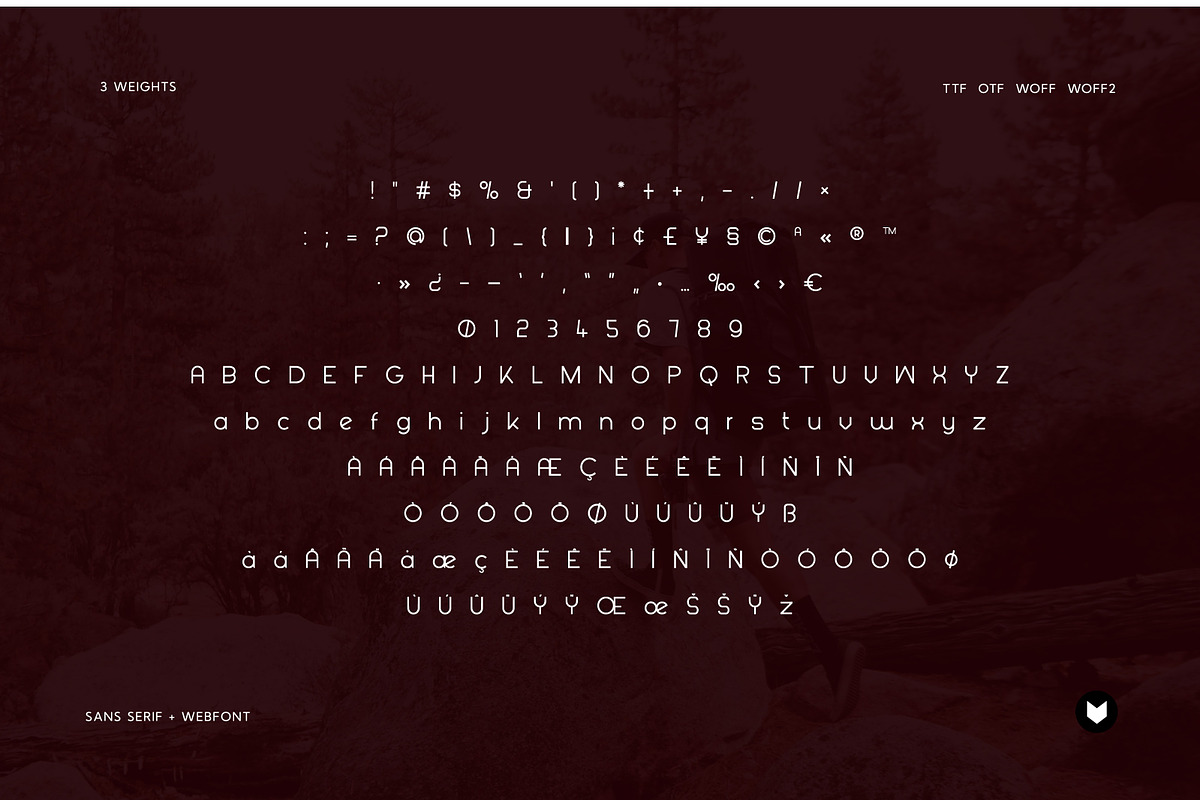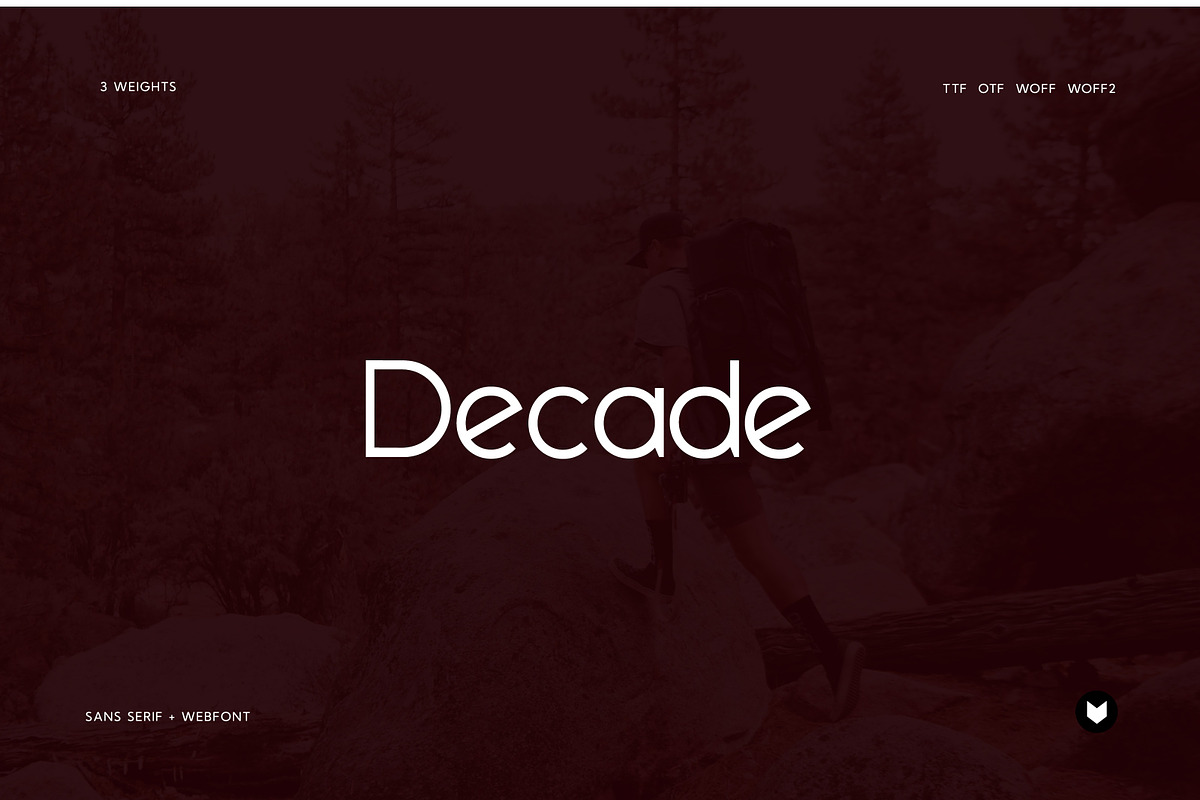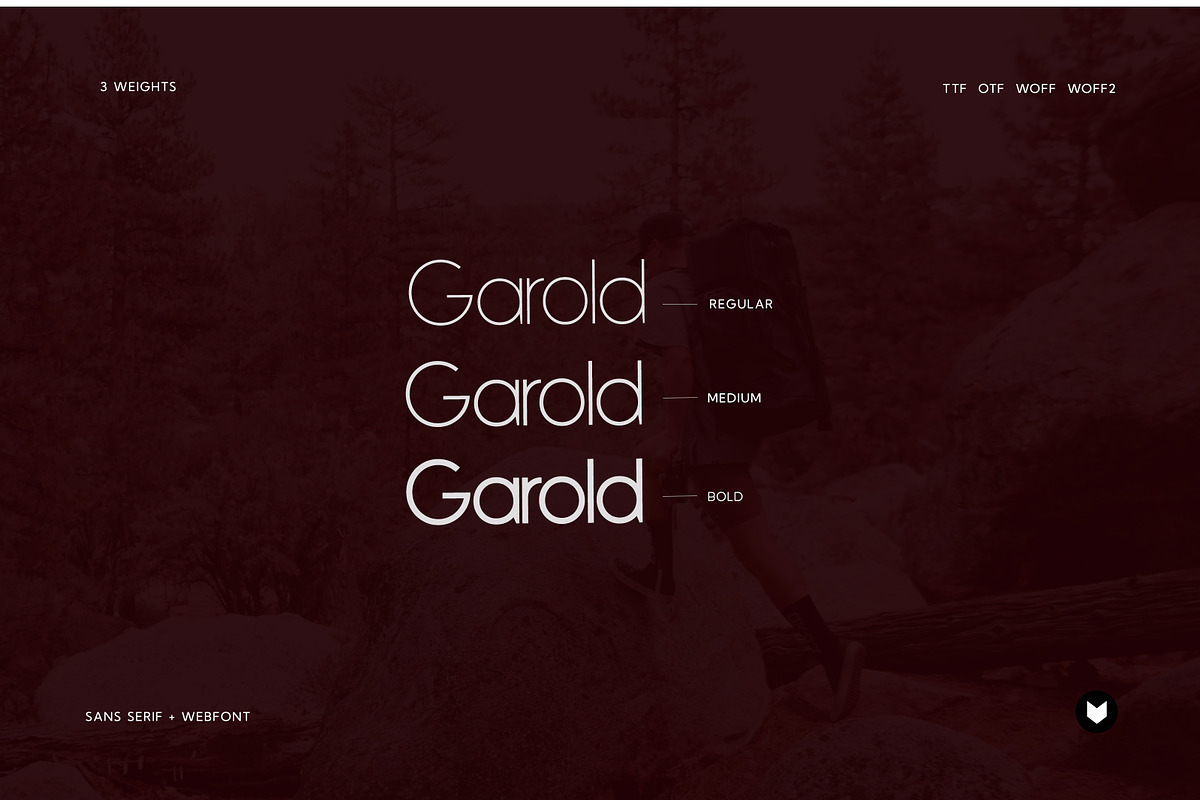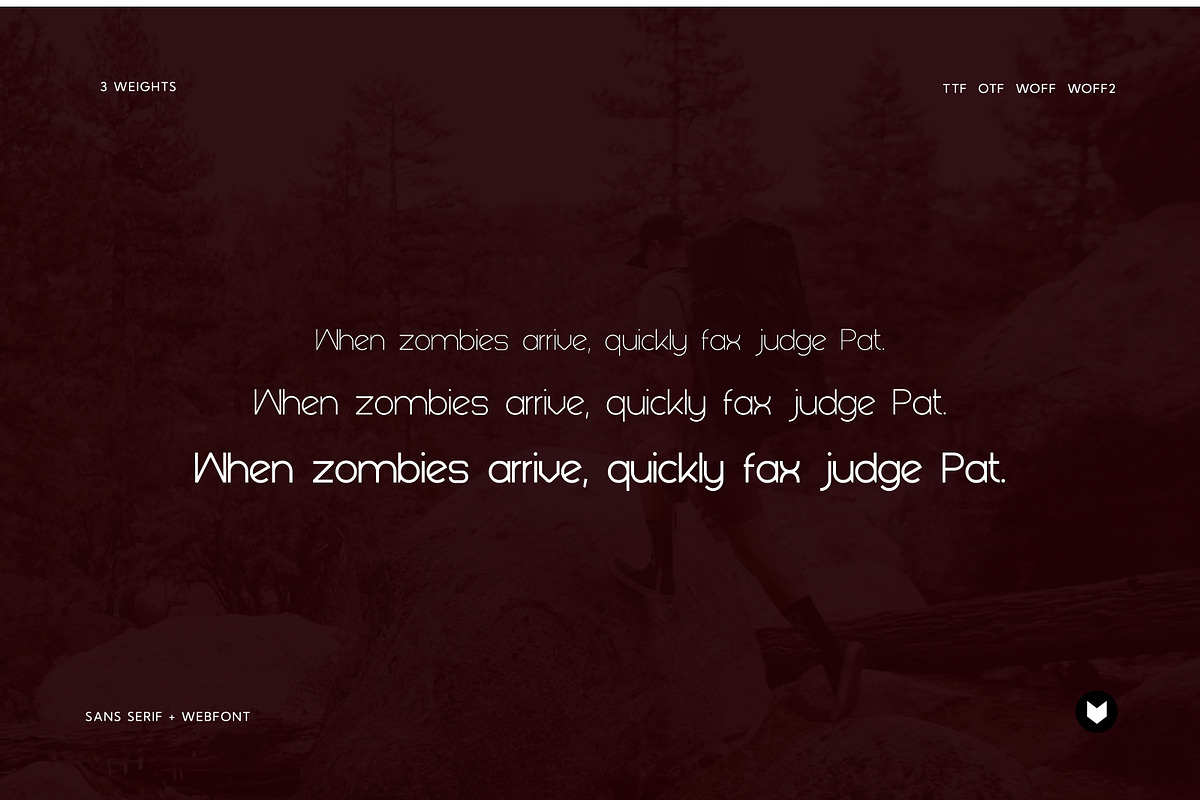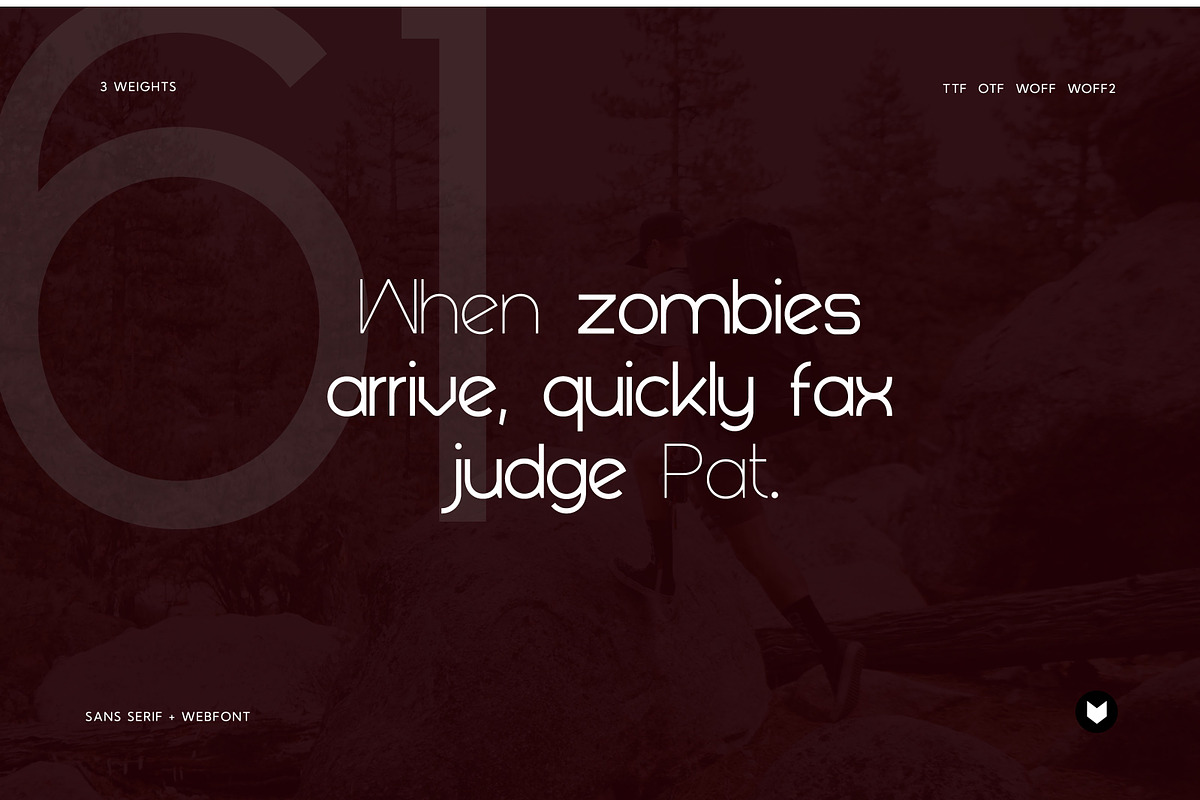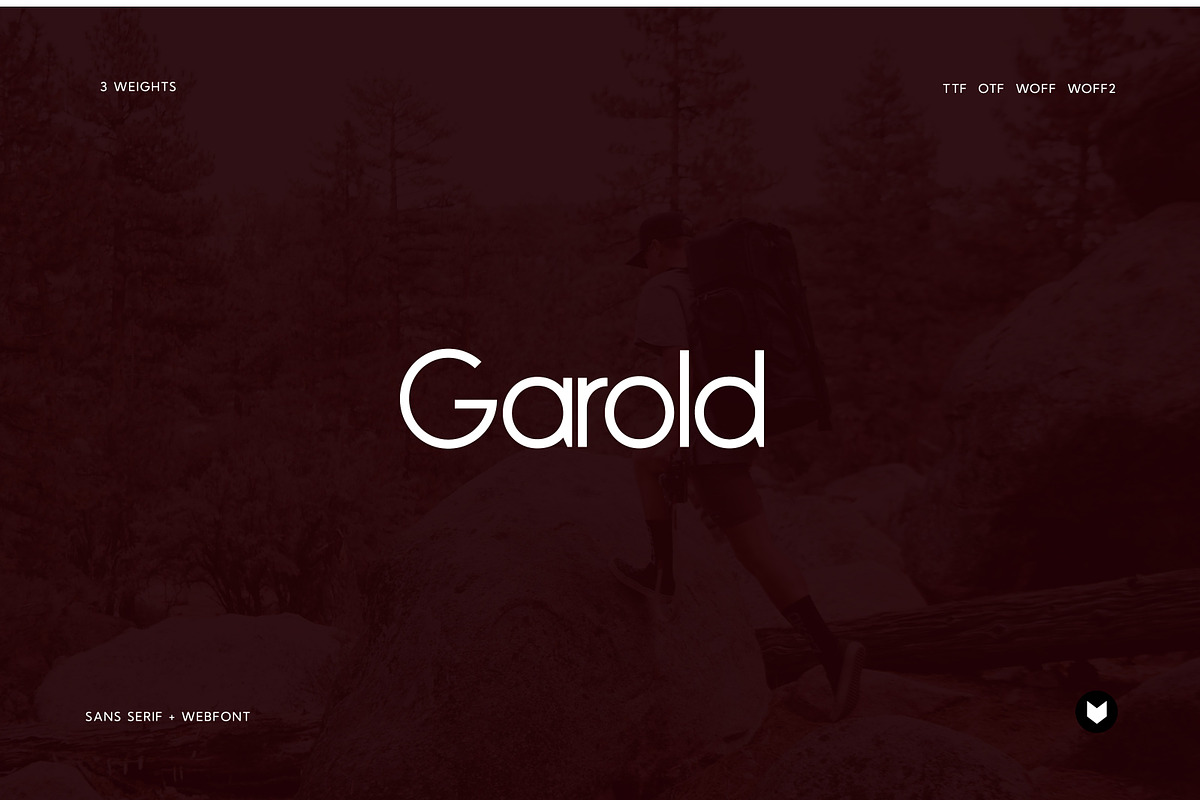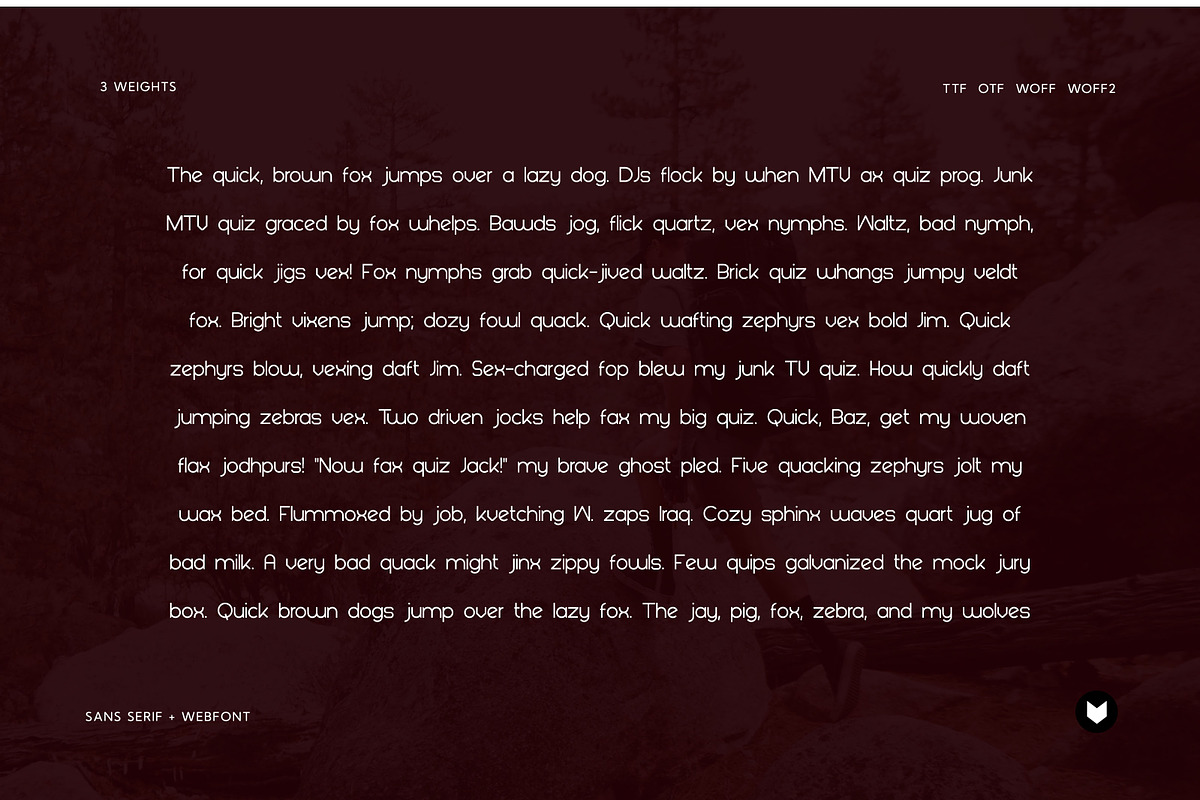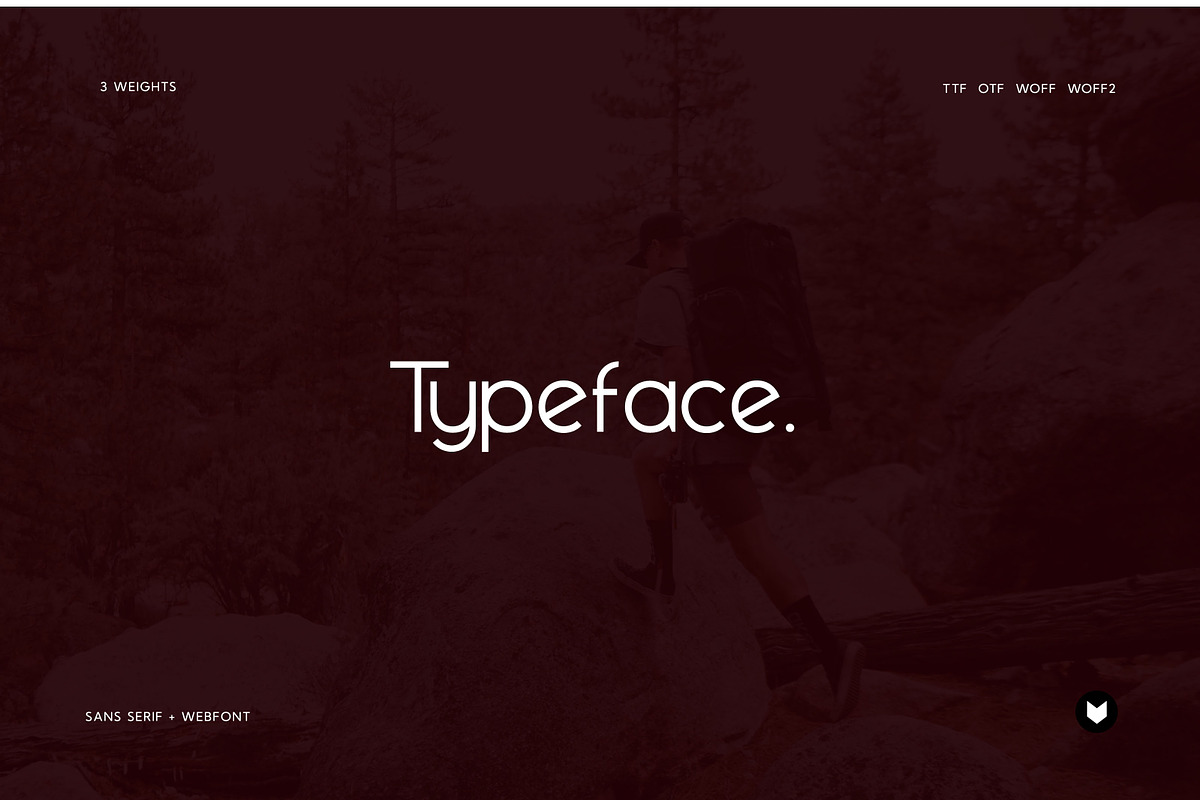
Garold Elegant Typeface
Garold is a minimal and neat sans serif font. It can easily be matched to an incredibly large set of projects, so add it to your creative ideas and notice how it makes them stand out!
3 weights Included.